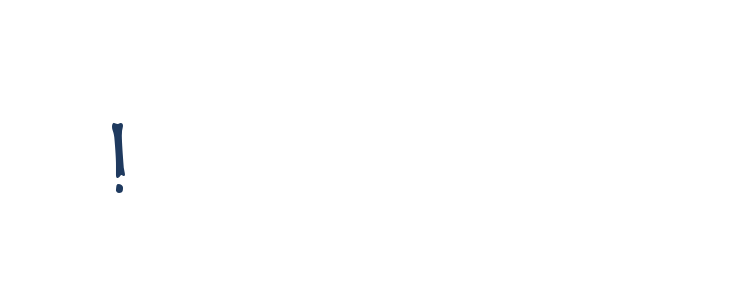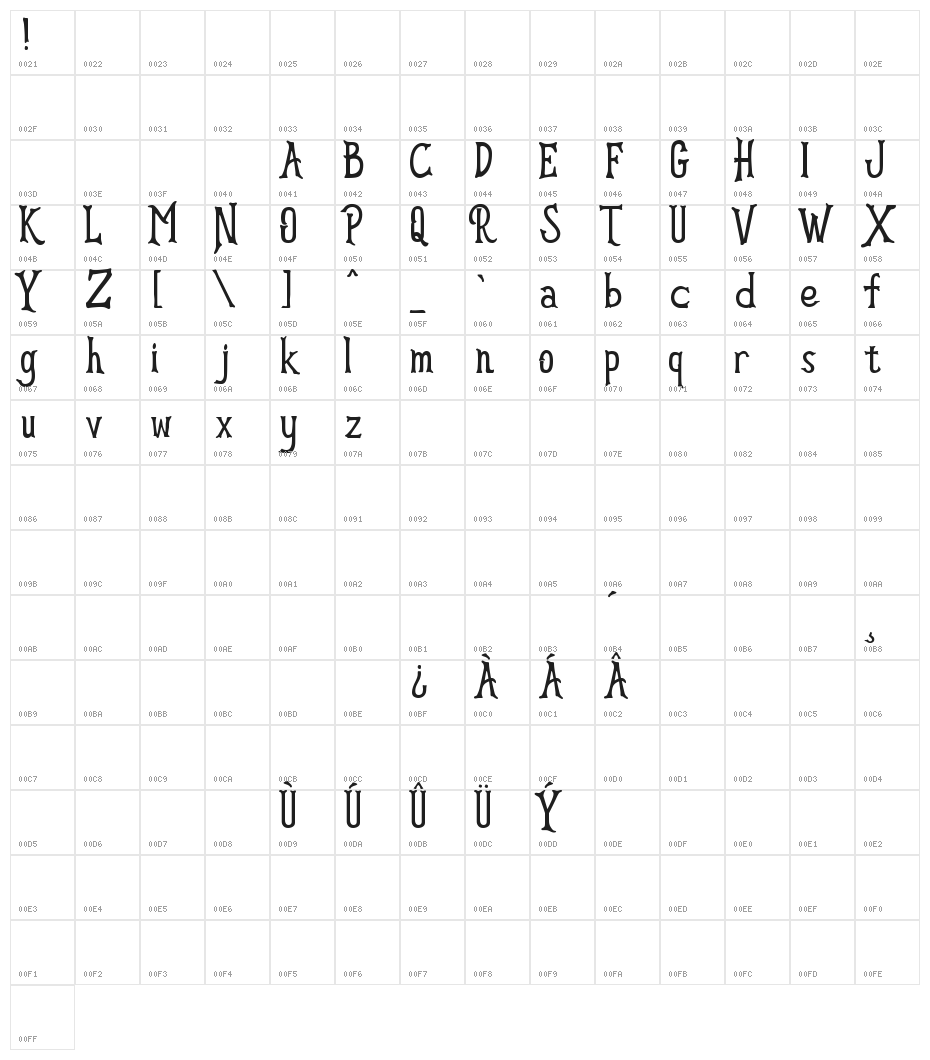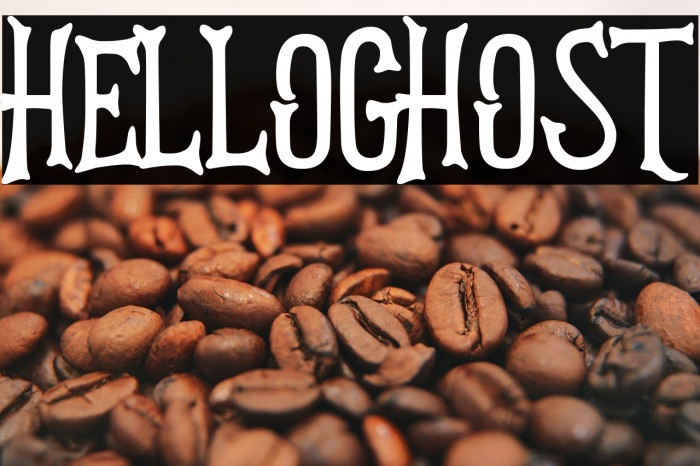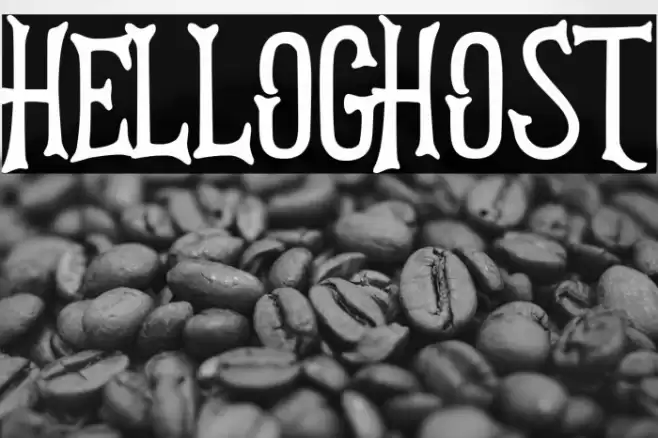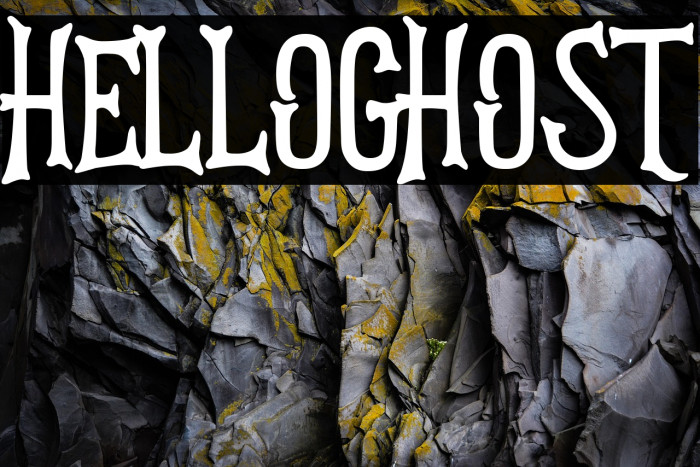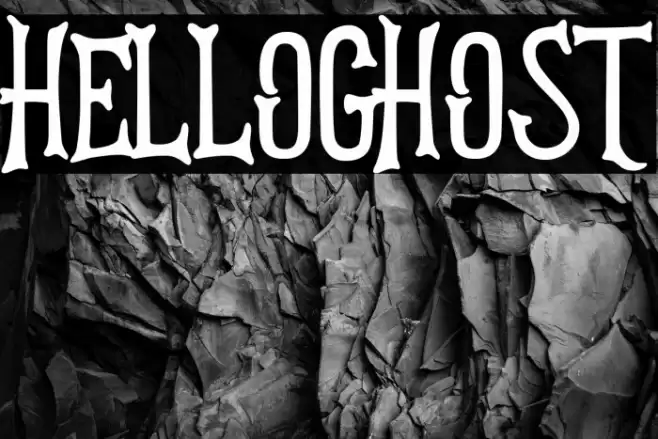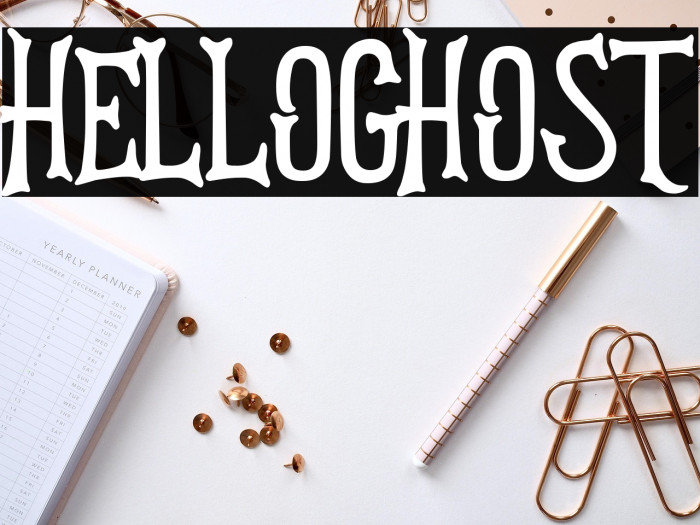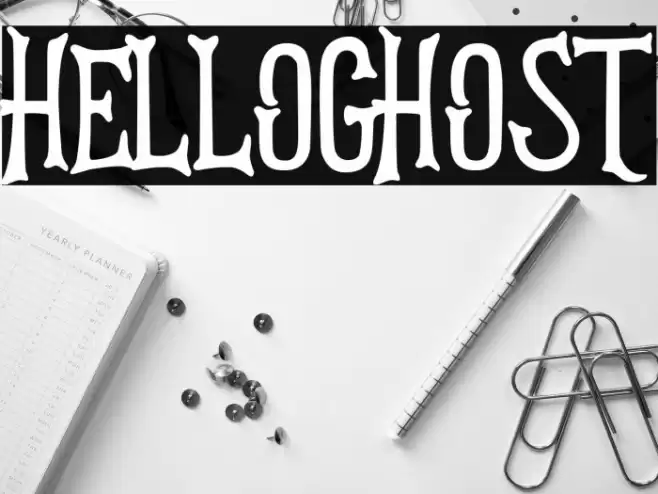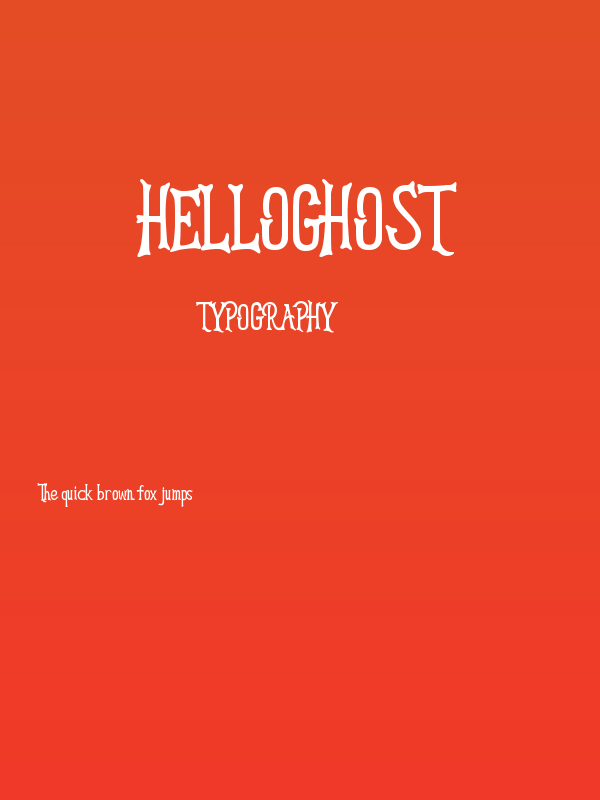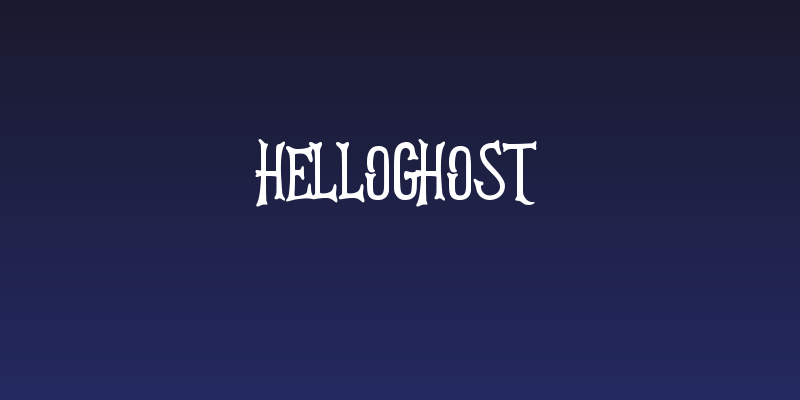
This font features a unique and playful design with a slightly spooky and whimsical character. The letters are elongated with uneven strokes, giving them a hand-drawn appearance. The uppercase letters have a bold presence, while the lowercase letters maintain a consistent style with a slightly narrower form. The font has a distinctive personality, making it suitable for creative and unconventional projects. The overall style is decorative, with a touch of gothic influence, making it ideal for themes that require a quirky or eerie aesthetic.
| Proposed Projects | Ideal for Halloween-themed designs, children's book covers, quirky branding, and creative posters. |